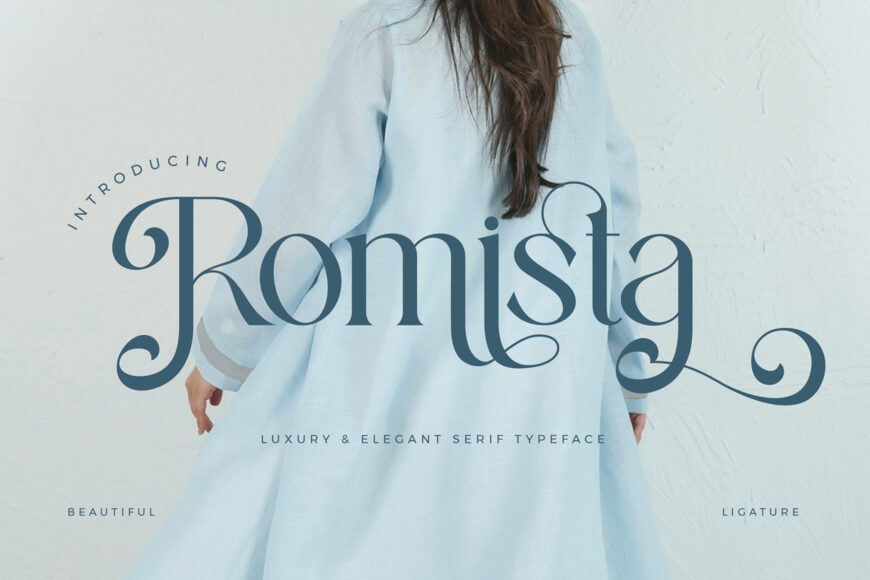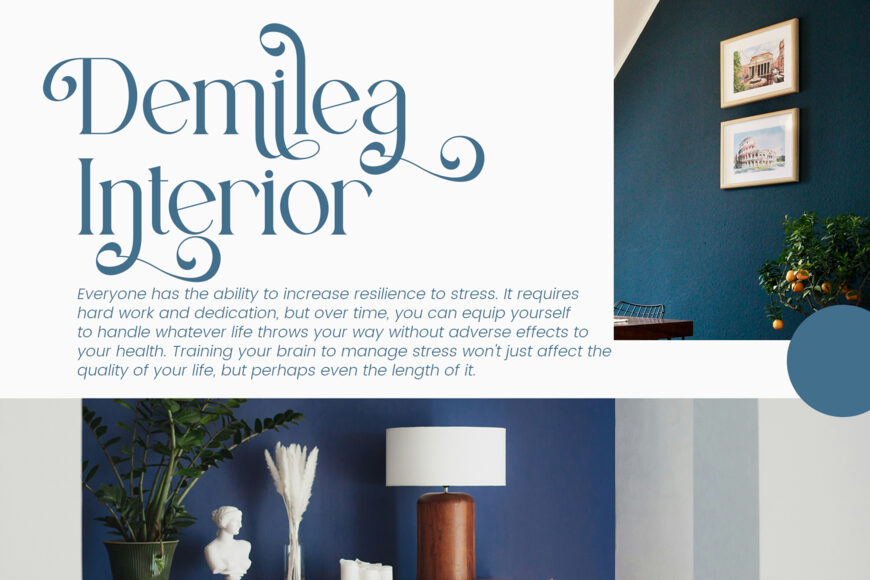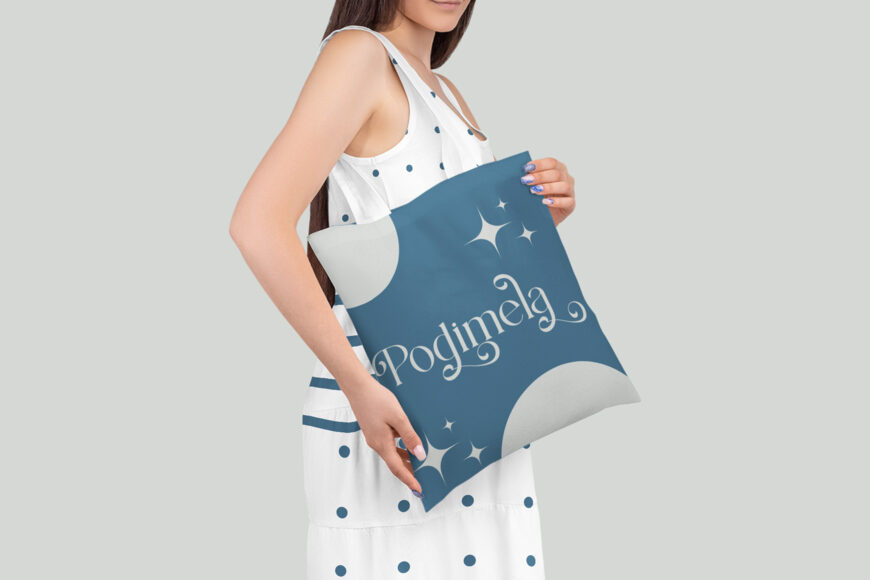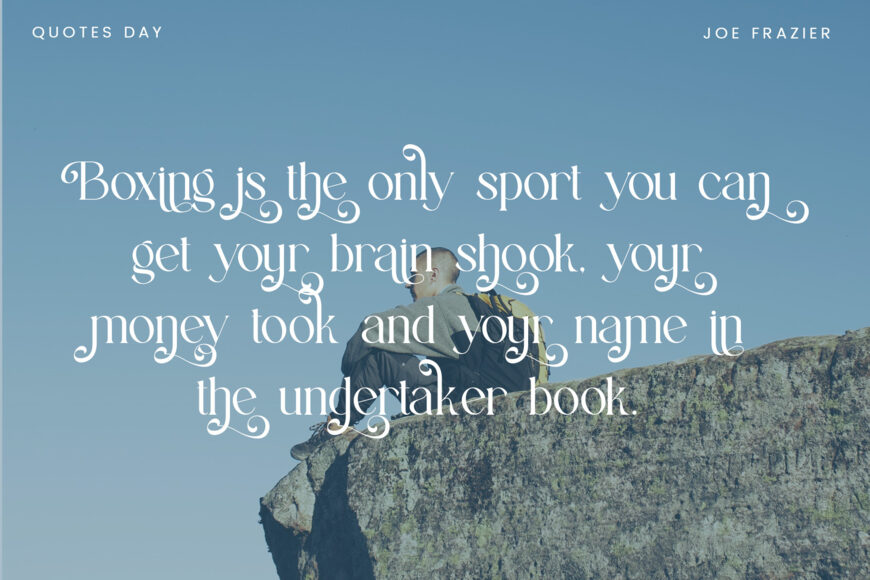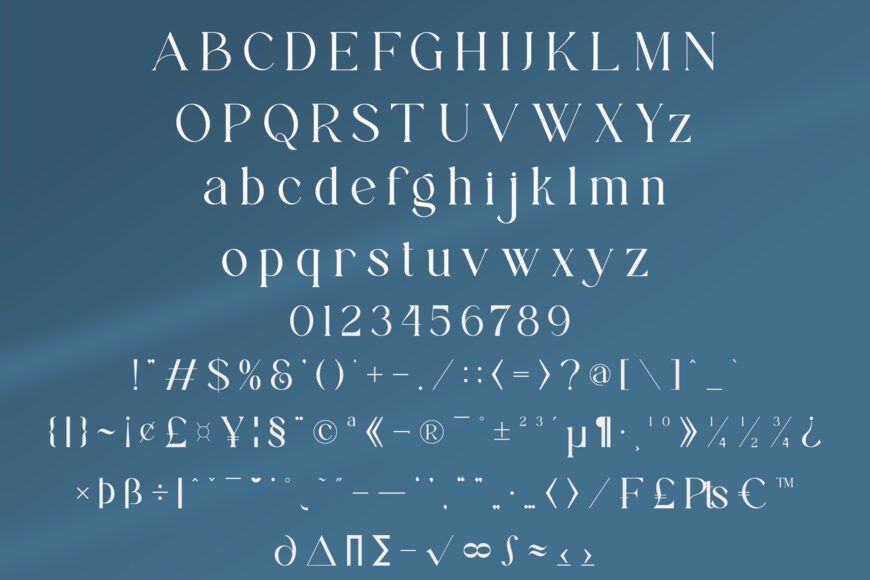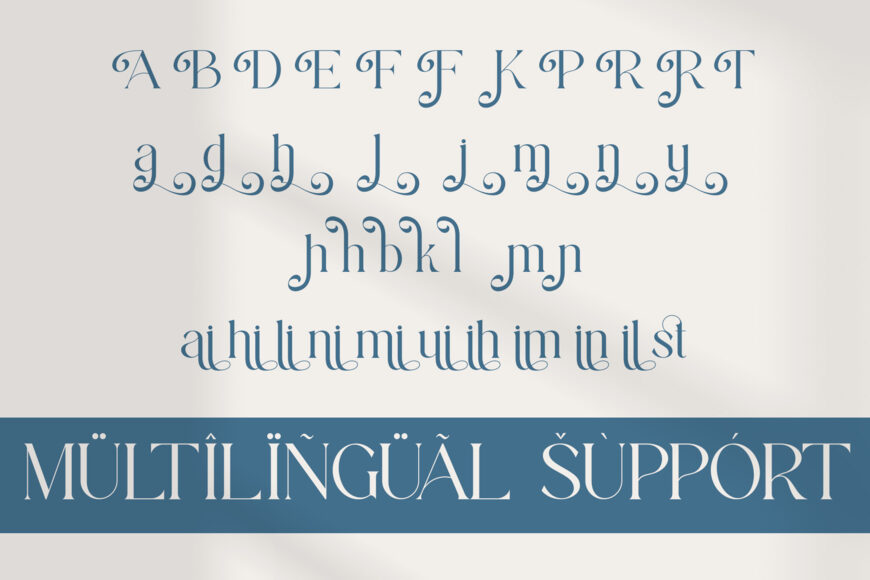
Romista Font
Romista is a luxurious serif typeface that exudes elegance and refinement. Designed with stylish swashes and graceful ligatures, Romista is perfect for high-end branding, fashion editorials, wedding designs, and upscale packaging. The contrast between its classic serif base and modern stylistic elements makes it incredibly versatile and visually captivating.